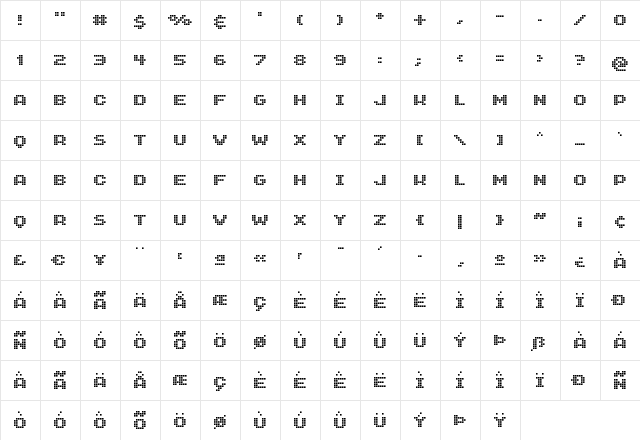
GenetrixSquare Medium Font Preview
GenetrixSquare Medium
Design Context for GenetrixSquare Typeface
GenetrixSquare is a composed and adaptable typeface that performs quietly and consistently across a wide range of design contexts.